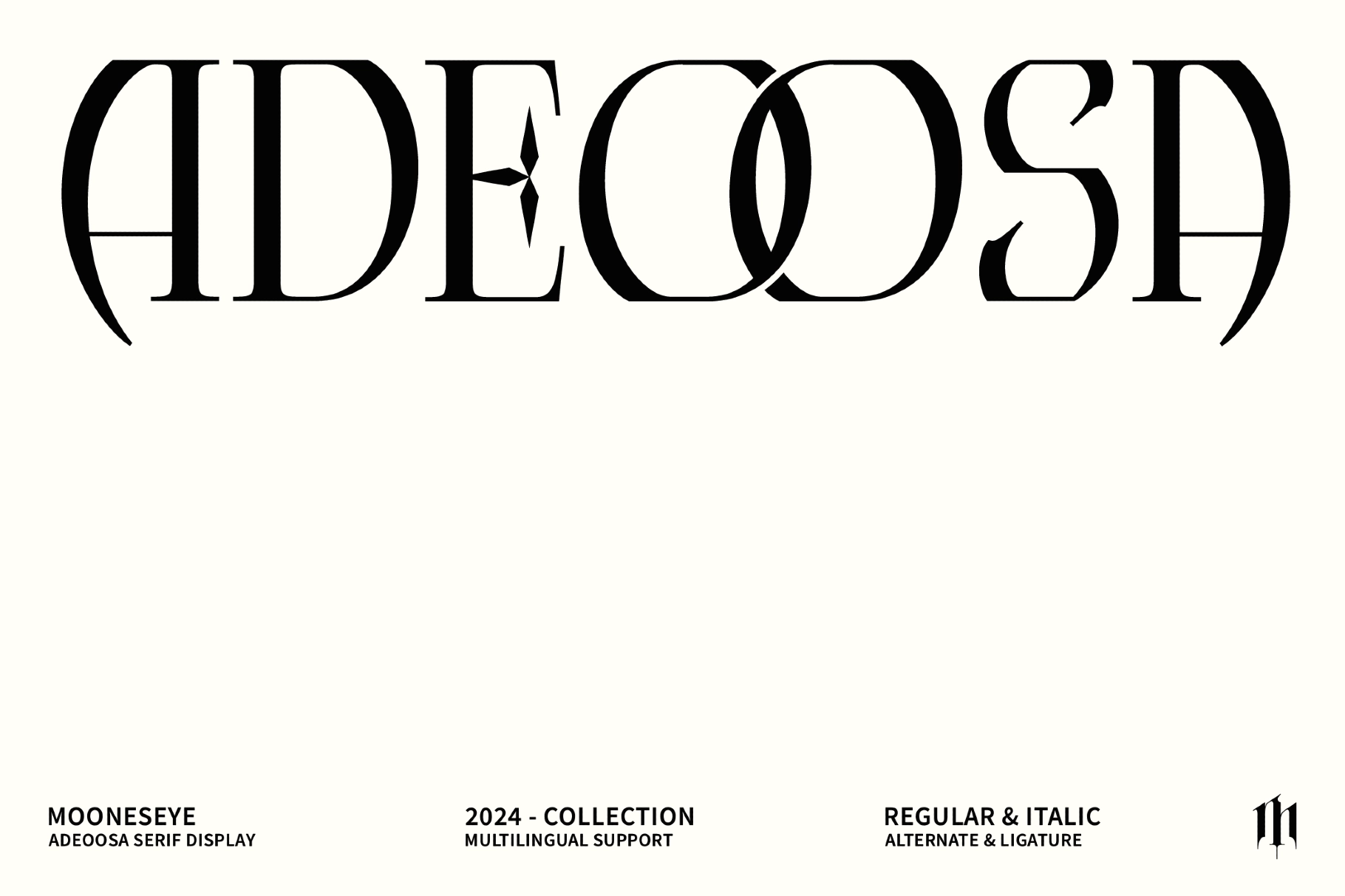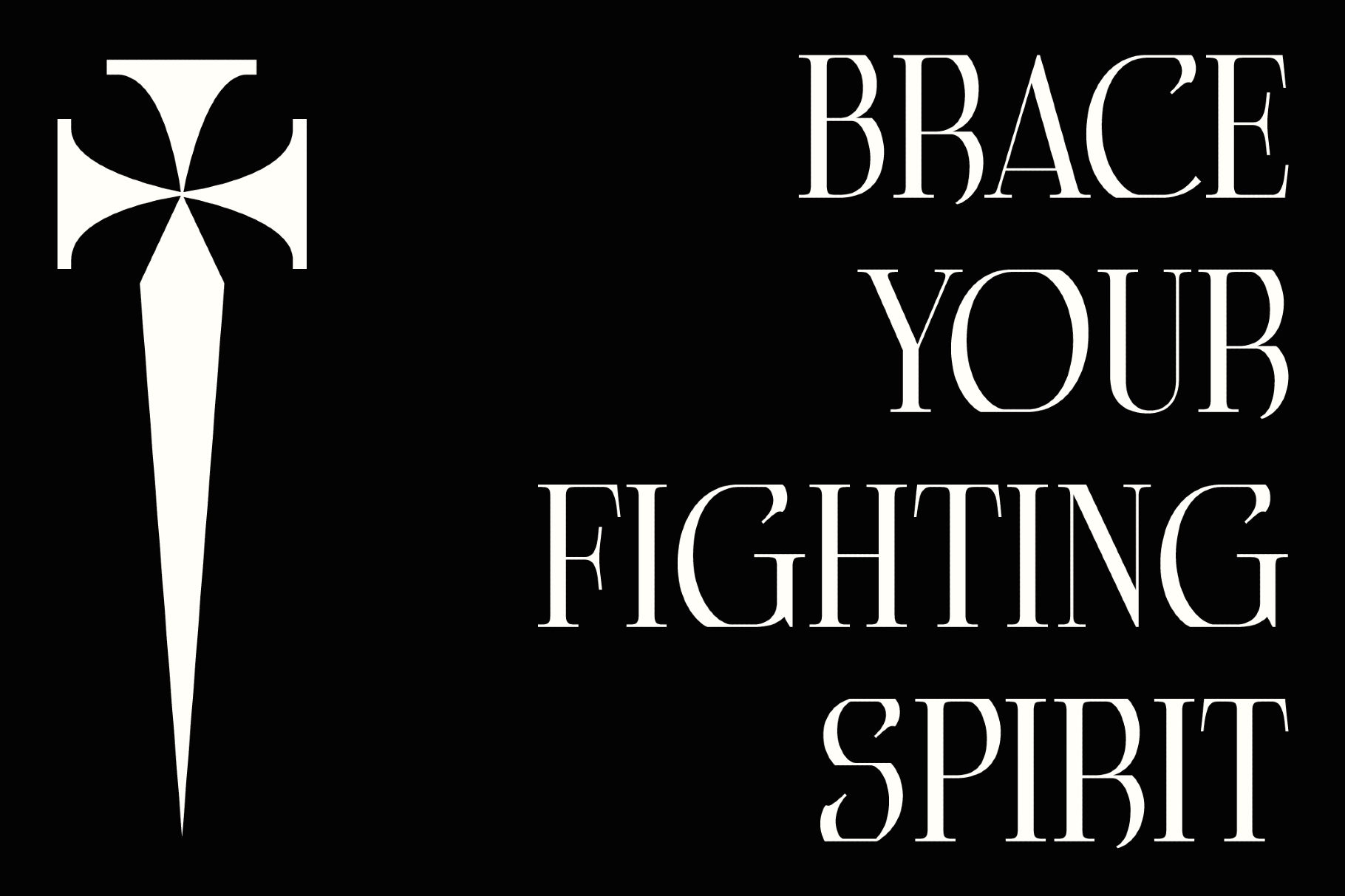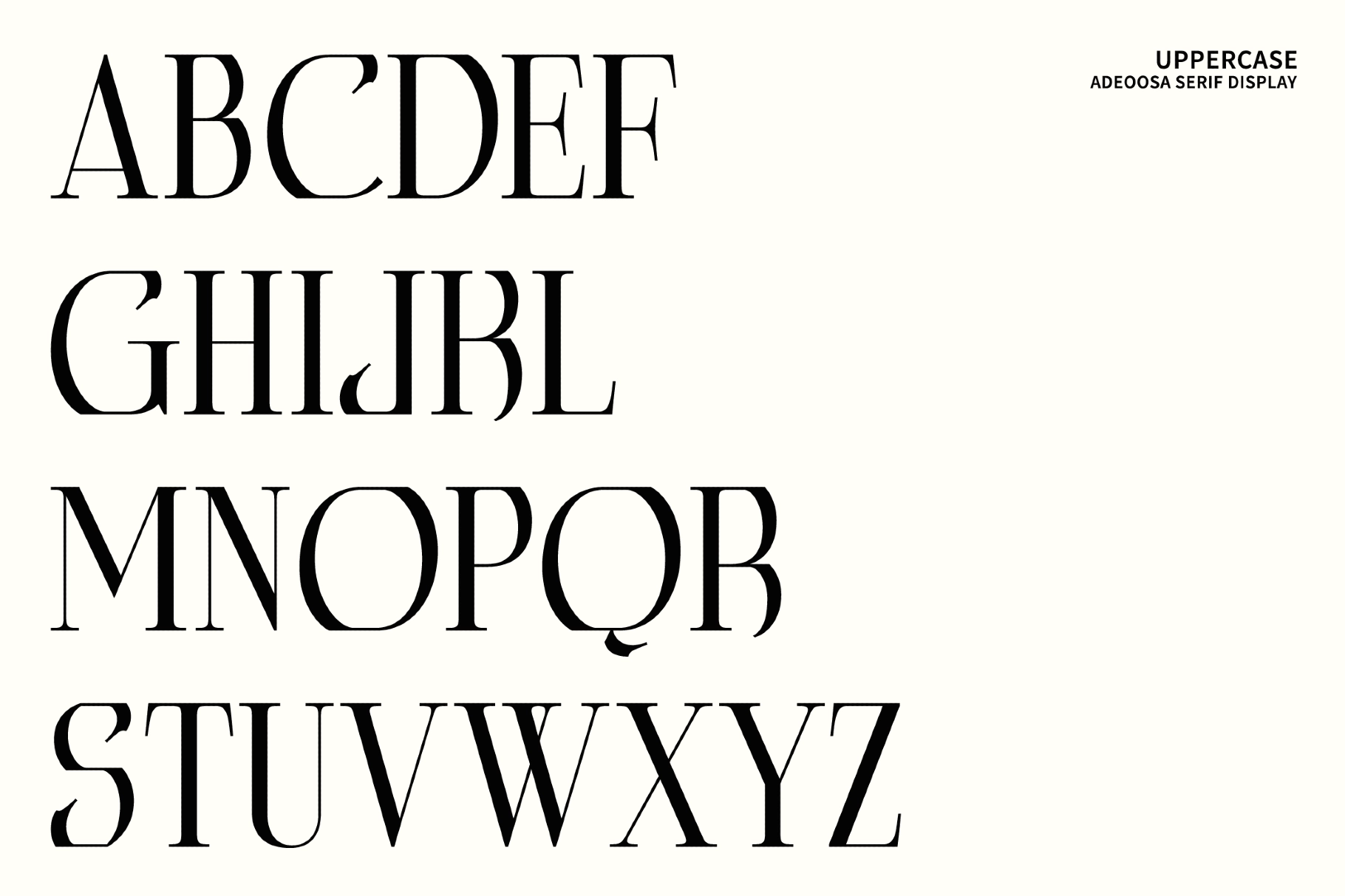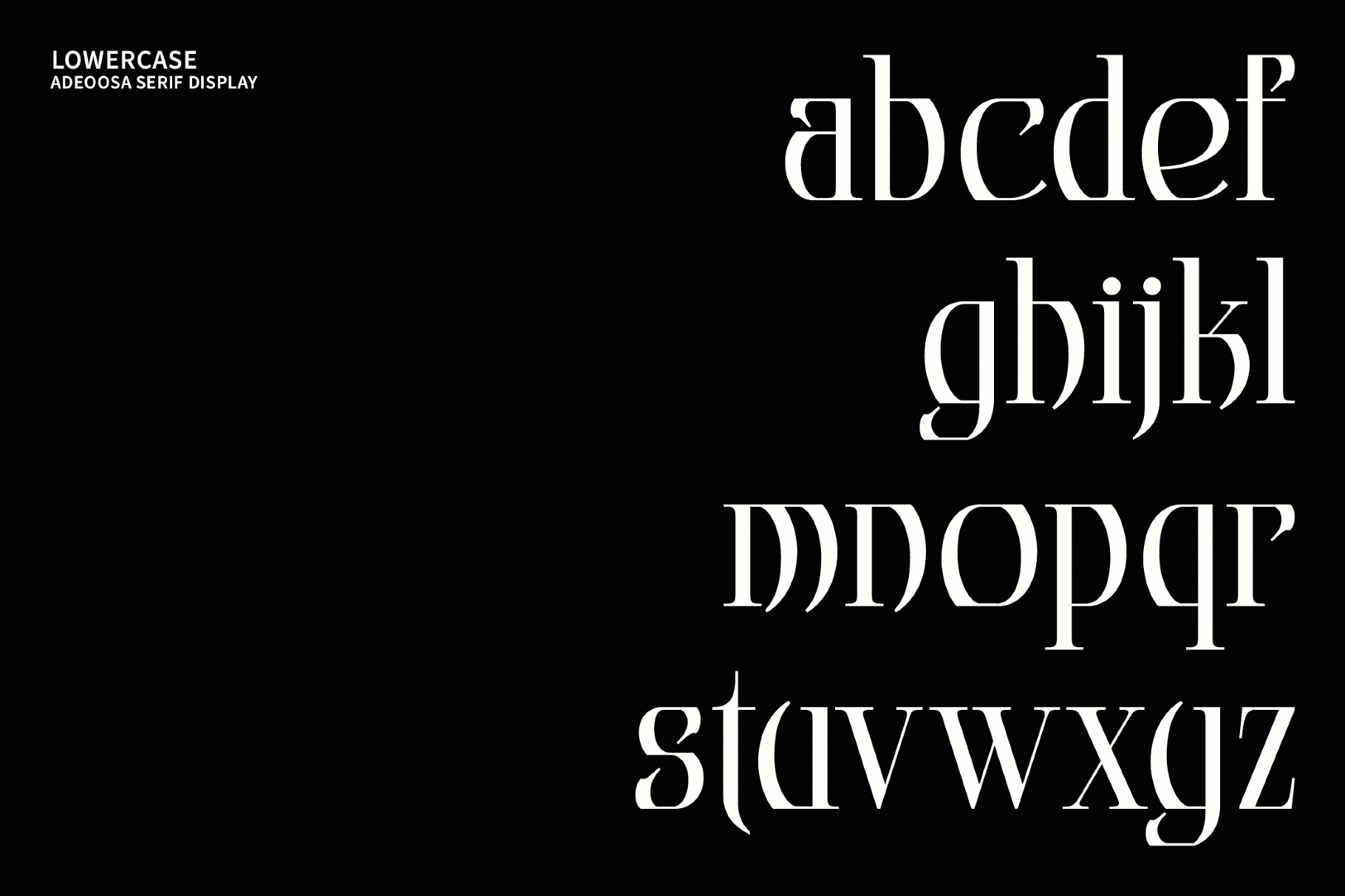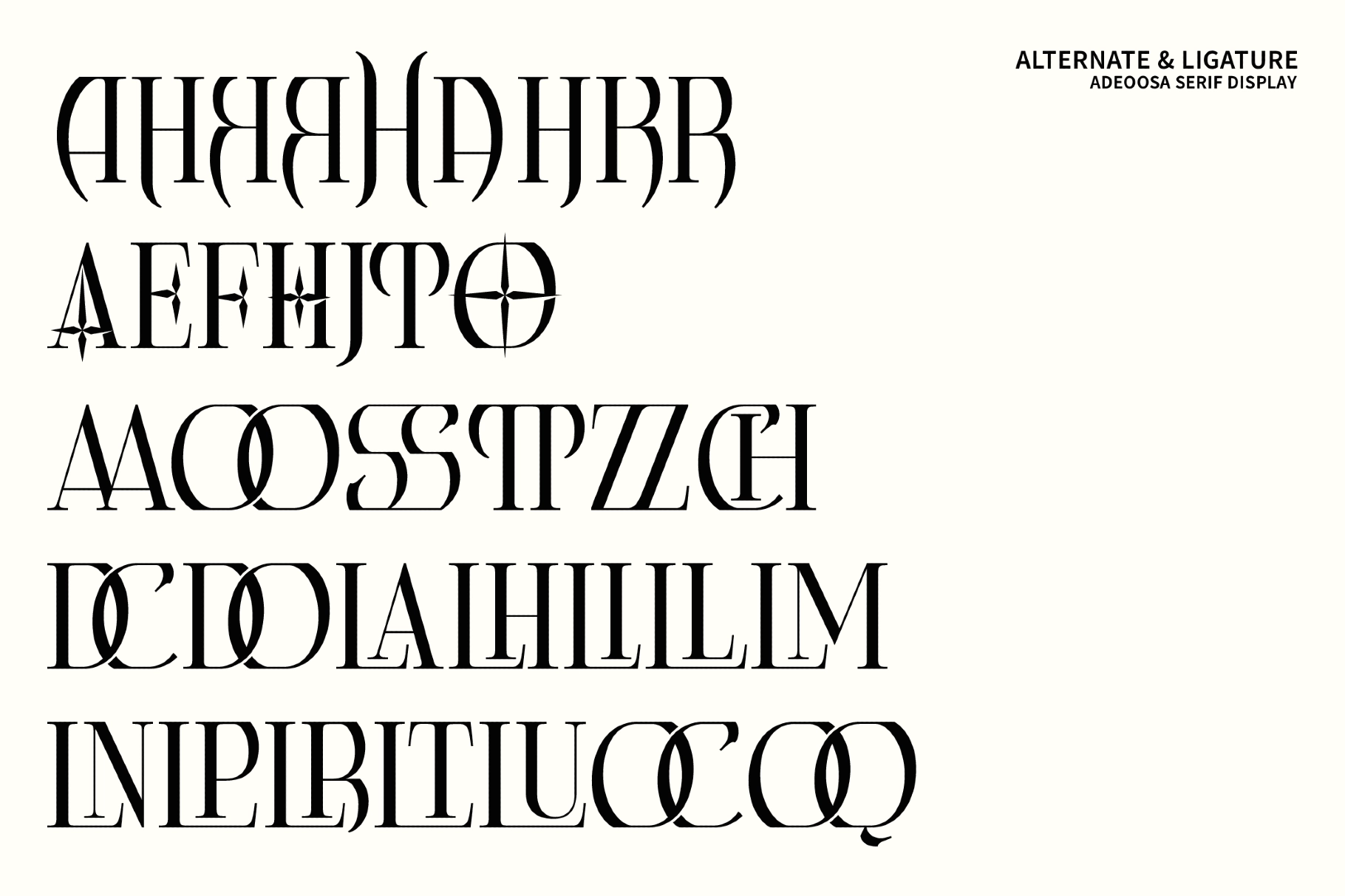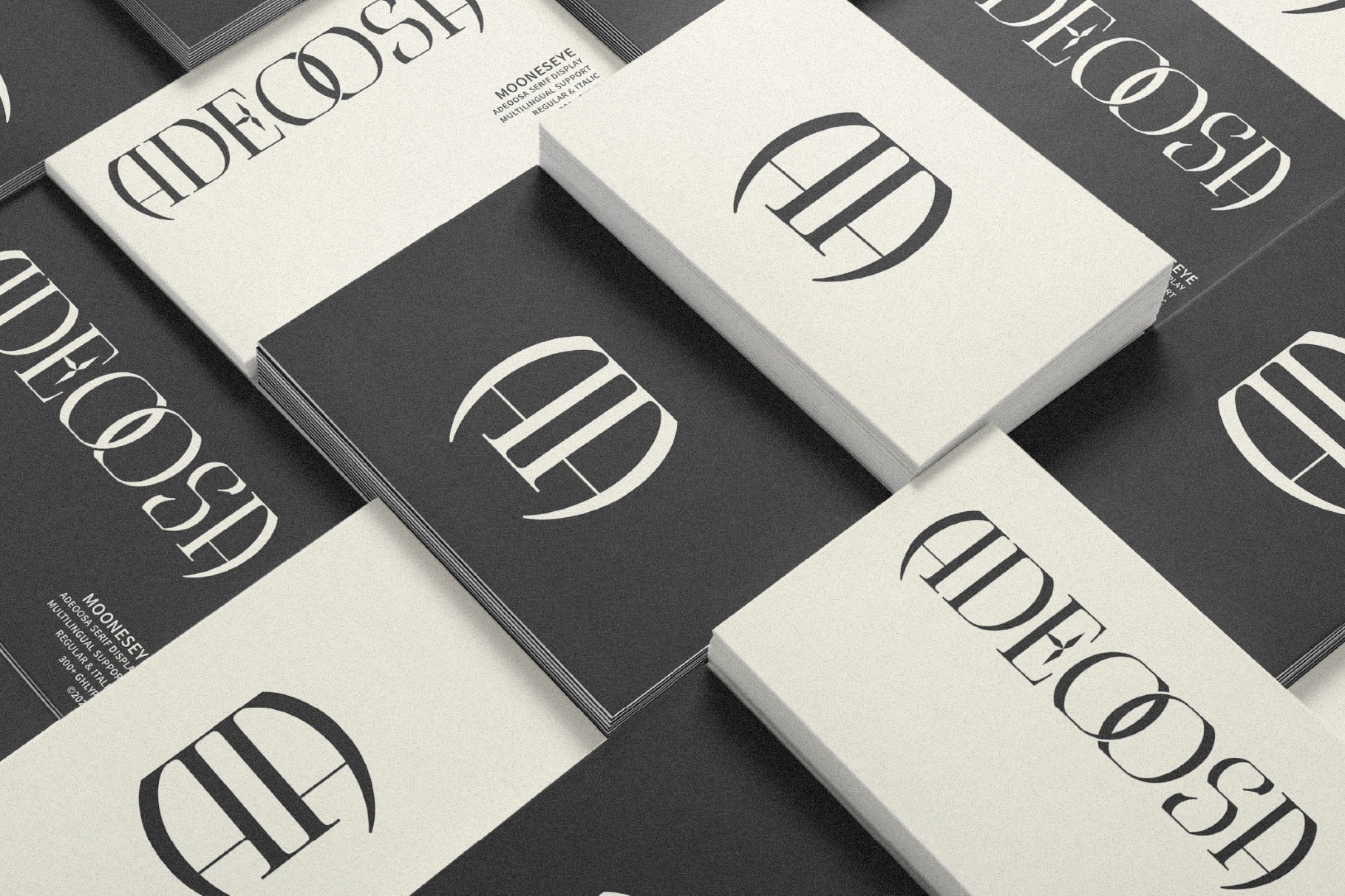
Adeoosa - Gothic Serif Display Font
This gothic serif typeface has high-contrast strokes, sharp curves, and dramatic letter shapes made for bold visual identities. Its dark editorial tone works across fashion, streetwear, music, and poster design, with Regular and Italic styles adding extra range for expressive typography.
Adeoosa is ideal for fashion branding, streetwear graphics, band merch, album covers, magazine titles, moody posters, book covers, spiritual projects, logo design, product packaging, art prints, social media headlines, and more. Alternates and ligatures add custom-looking details, while multilingual support keeps the typeface ready for wider creative use.
• 2 styles: Regular, Italic
• Alternates & Ligatures